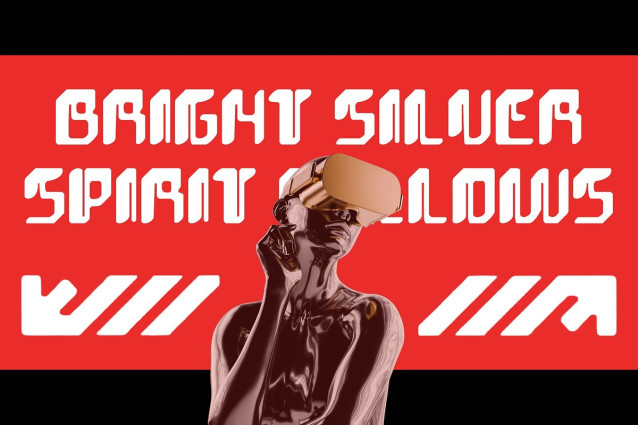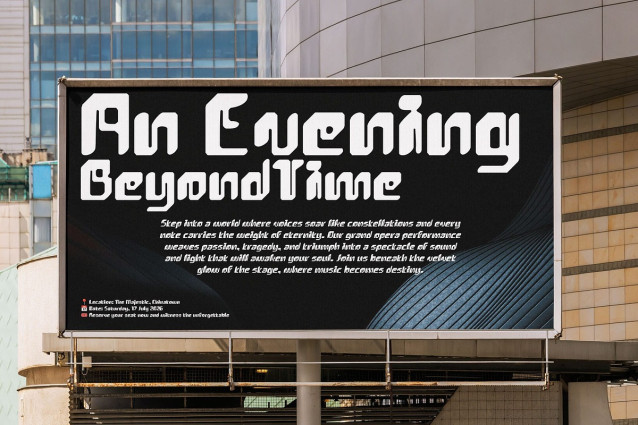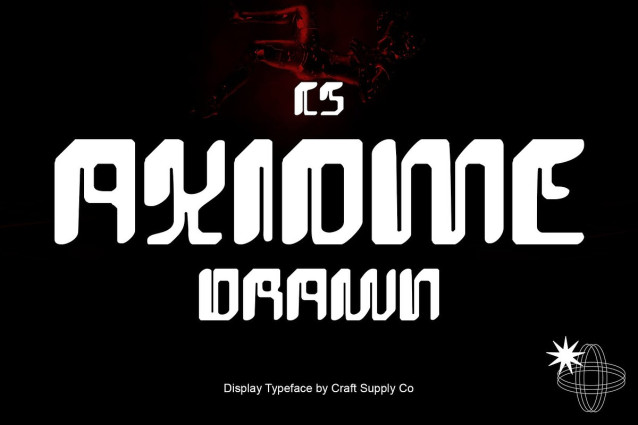
CS Axiome Drawn Font
CS Axiome Drawn Font – This is a bold sans serif display font designed with a distinct techno-inspired edge. Its sharp geometry and confident strokes convey innovation and modernity, making it a perfect choice for projects that demand a futuristic and commanding presence.
Bold, Striking Shapes with Futuristic Style Every letter in this font is crafted to emphasize strength and clarity. The bold, structured design reflects the aesthetics of technology and forward-thinking visuals, giving your layouts a dynamic and modern appeal. Its form makes it ideal for impactful headlines, posters, and branding that must grab attention instantly.
Hand-Drawn Effect for Depth and Personality While its structure leans toward precision and modernism, the drawn effect introduces a human touch. This handcrafted texture enriches the typeface with depth, warmth, and artistry, setting it apart from purely digital techno fonts. The balance of strict geometry with expressive drawn character gives it a unique personality that stands out in creative applications.
Versatile for Branding, Logos, and Posters This font adapts seamlessly across design contexts. It delivers bold impact in logos, futuristic energy in posters, and modern sophistication in branding. By combining strength, innovation, and handmade charm, this font provides a powerful tool for designers seeking originality with a futuristic twist.